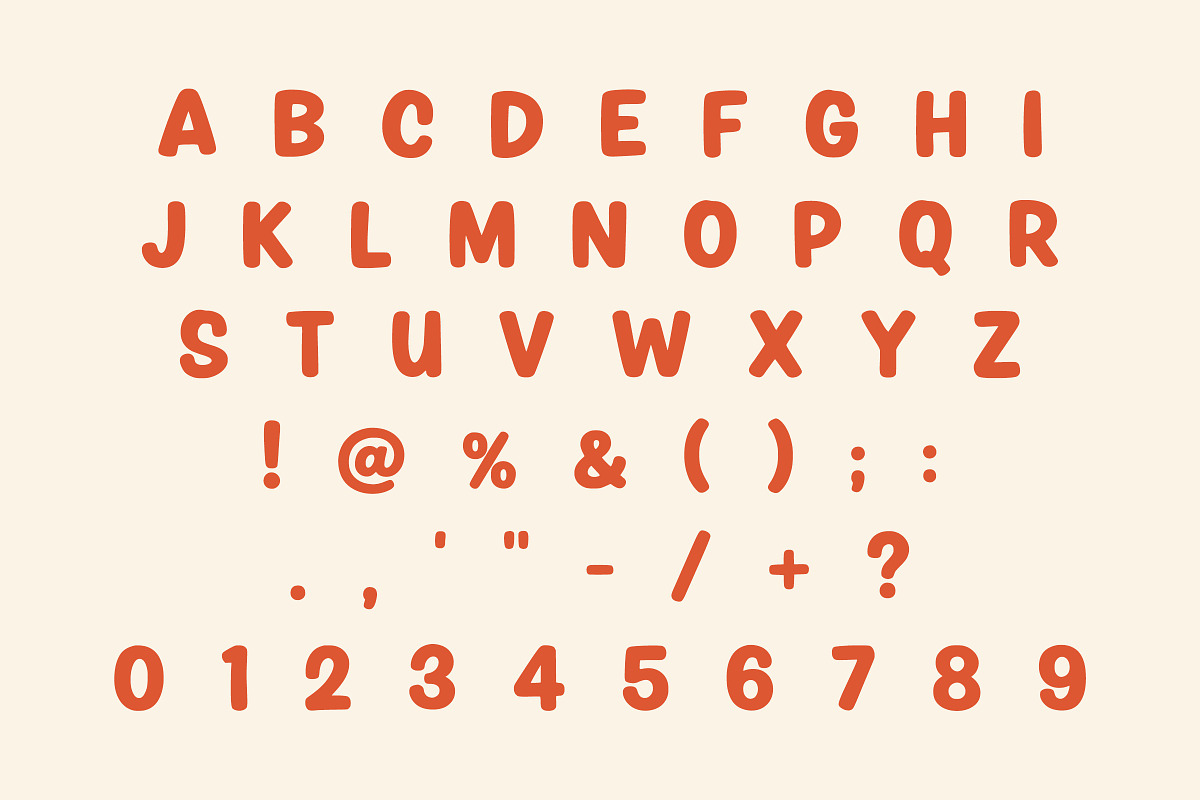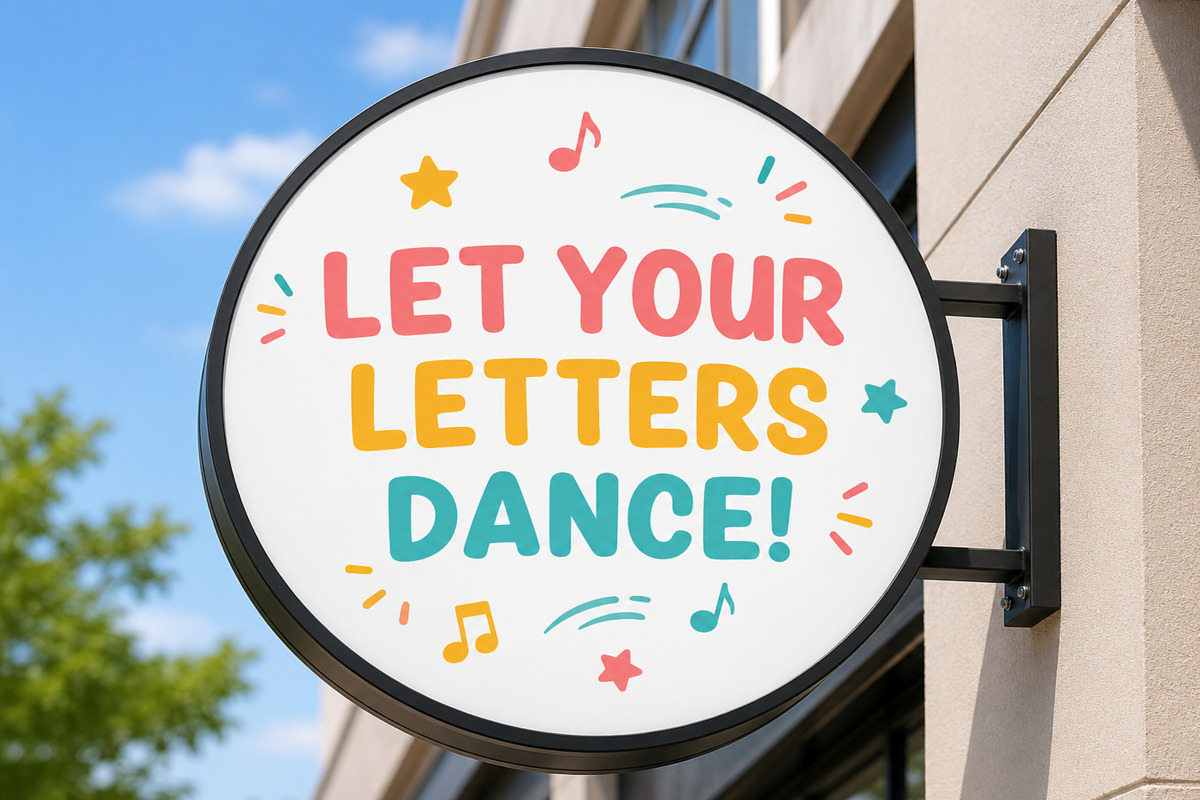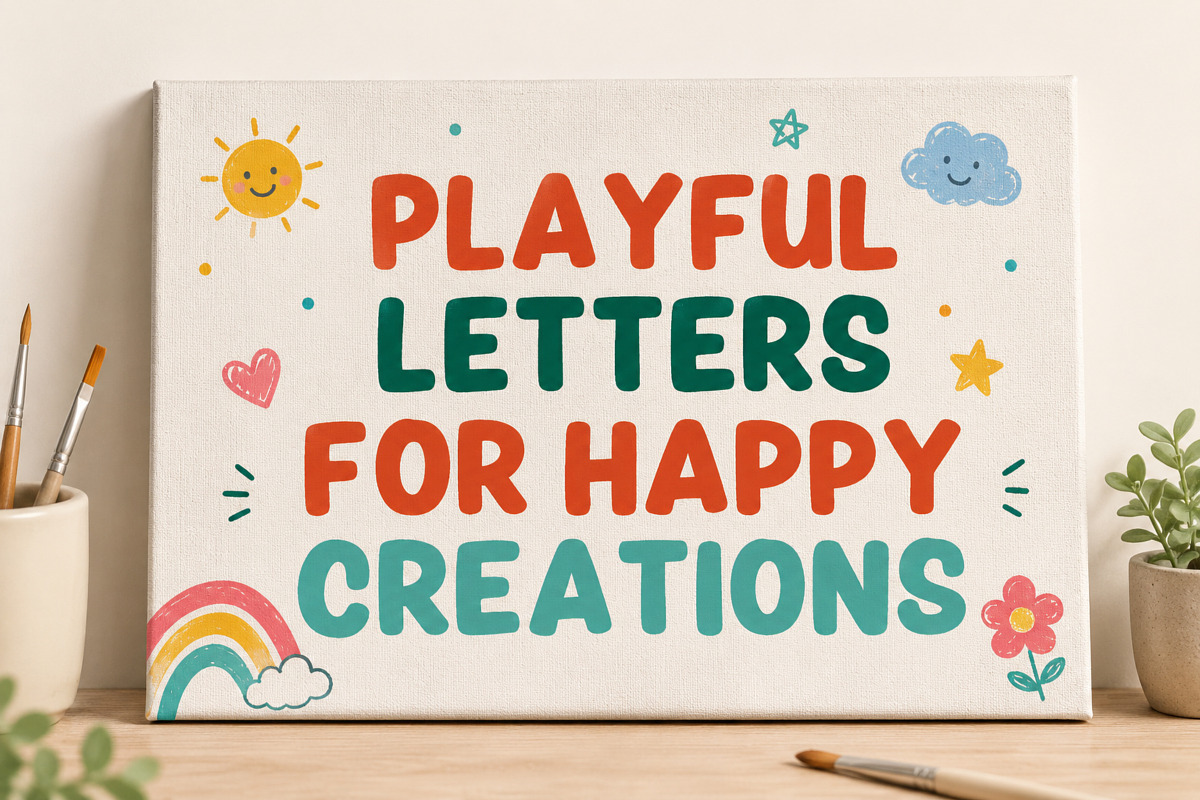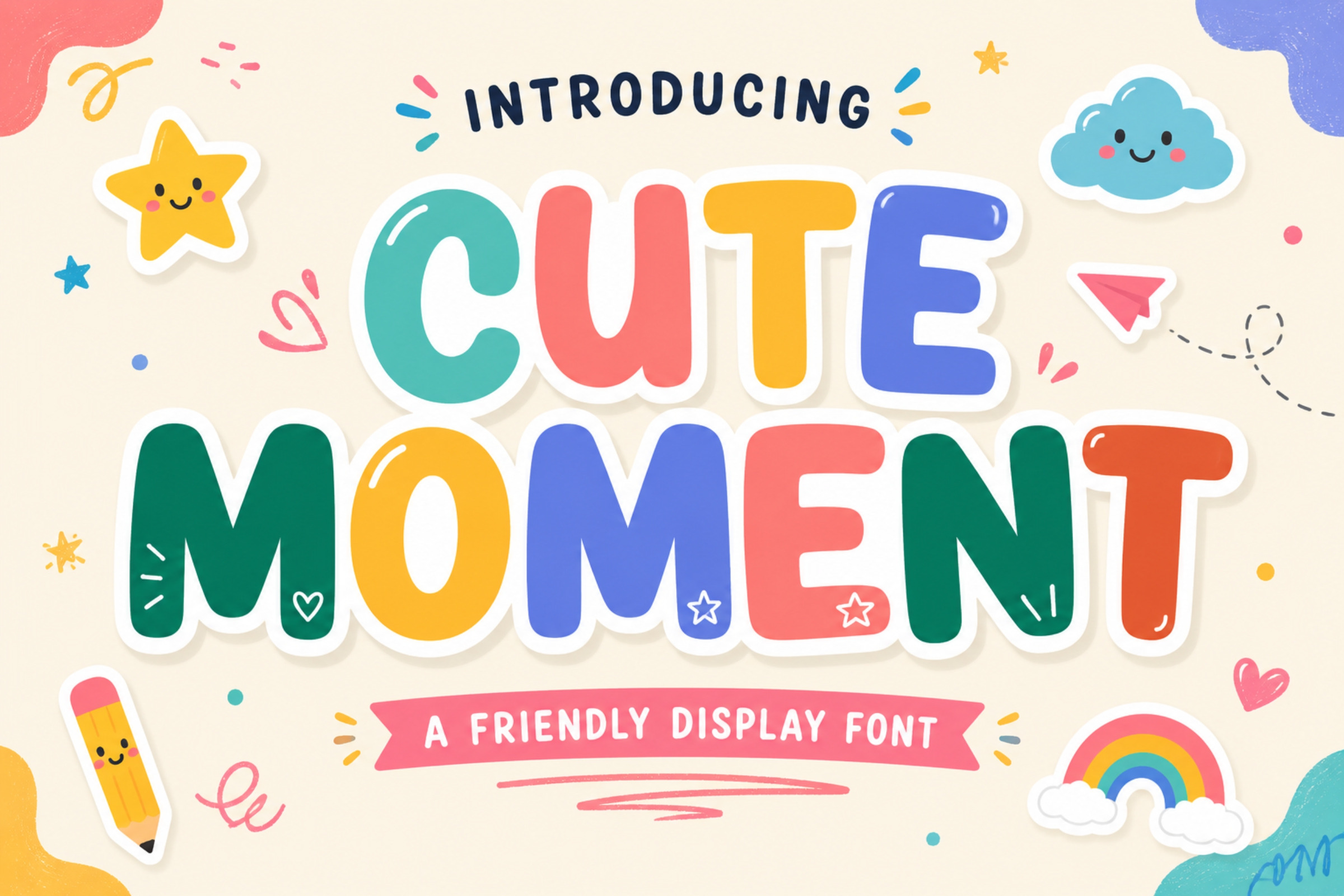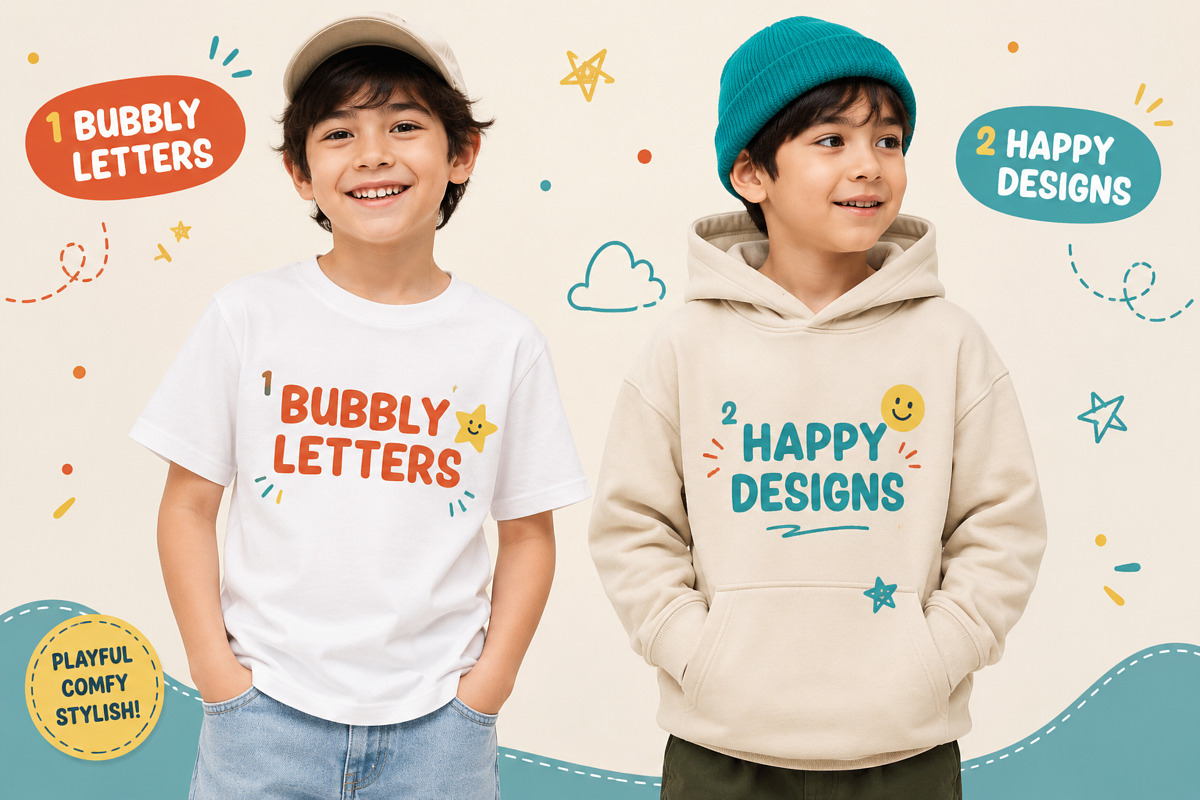
Cute Moment – Playful Kids Font
Add a touch of happiness to your designs with Cute Moment, a friendly display font crafted for playful and creative projects. With its thick rounded characters, soft edges, and charming personality, this font is ideal for creating designs that feel warm, fun, and approachable.
Whether you're designing for kids, schools, baby brands, or crafting playful merchandise, Cute Moment delivers a clean, bold look that remains highly readable across both digital and print media.
Kids branding
Children's books
Toy packaging
Baby shower invitations
Birthday party decorations
School worksheets
Educational materials
Stickers & labels
T-shirt designs
Posters & flyers
Logo designs
Cricut & Silhouette projects
DIY crafts
Sublimation products